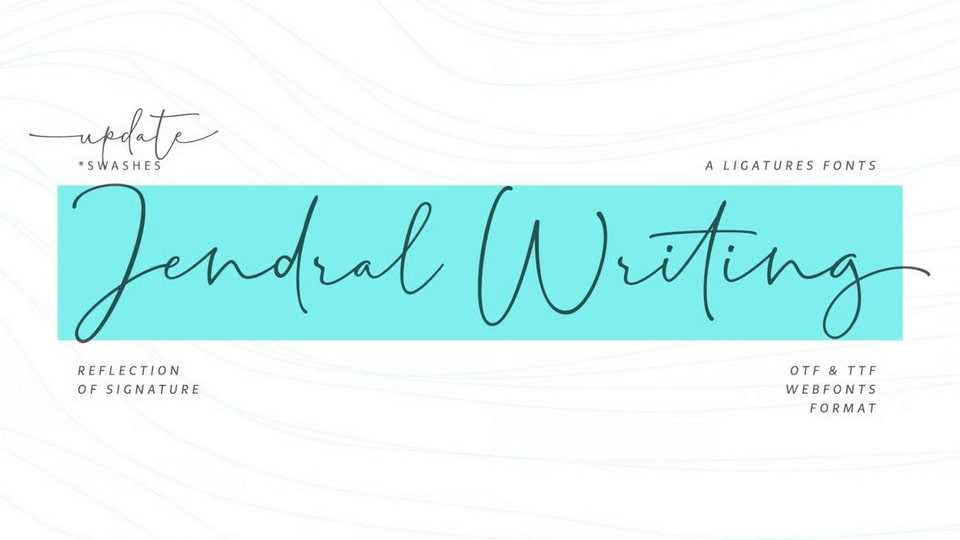
Download Jendral Writing font, a typeface that exudes a contemporary charm that seamlessly blends with any project. Its super natural appearance makes it perfect for adding a personal touch.